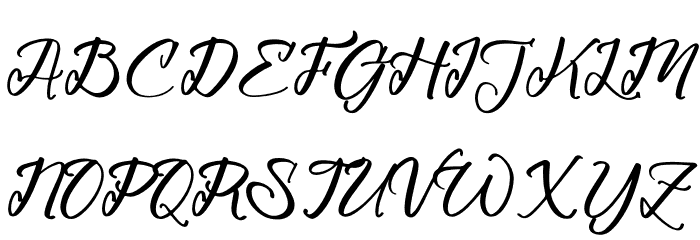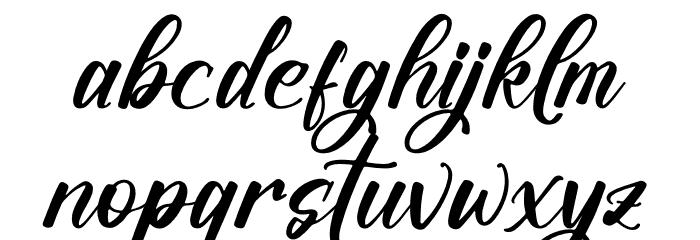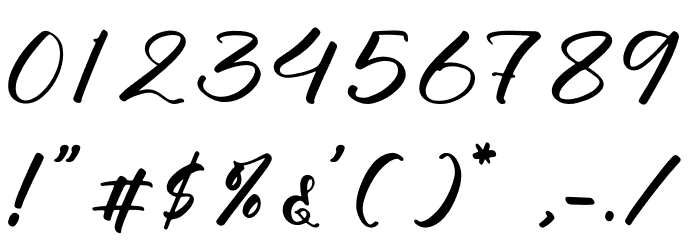
Violendy Qishega Font
A flowing, elegant script font with a handwritten appearance, featuring smooth curves and connected letters.
Elegant handwritten script font.
- Font: Violendy Qishega
- Proposed Projects: Invitations, greeting cards, branding.
- Category: Script
- Character Spacing: Tight
- Use Case: Logos, decorative text, invitations.